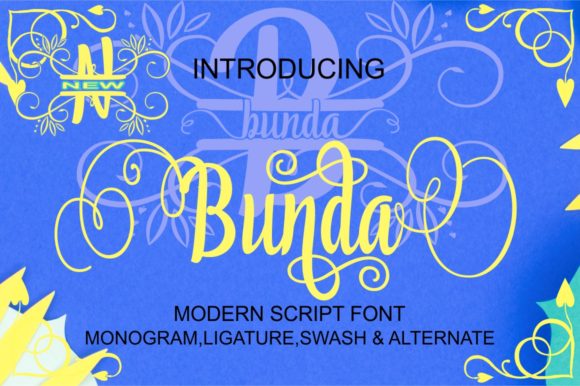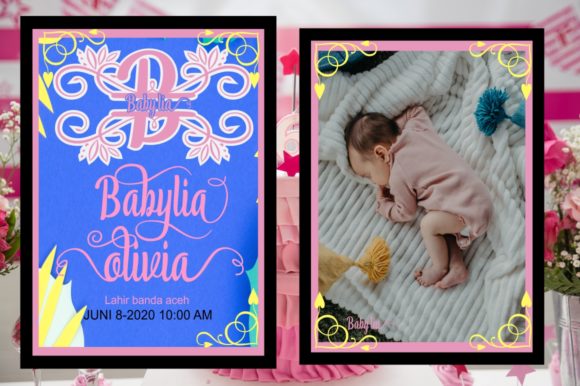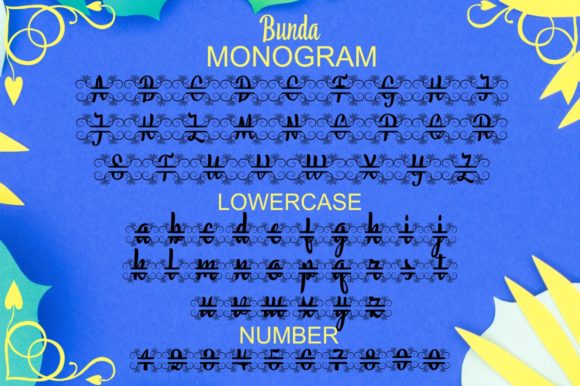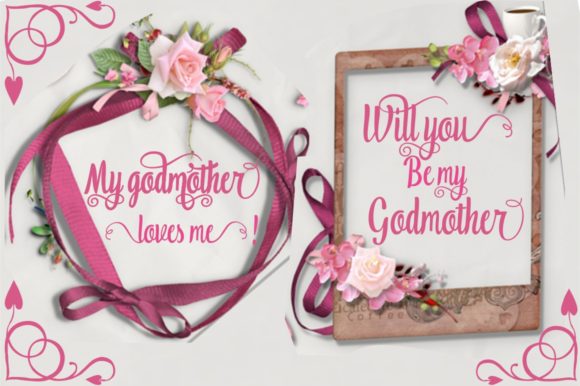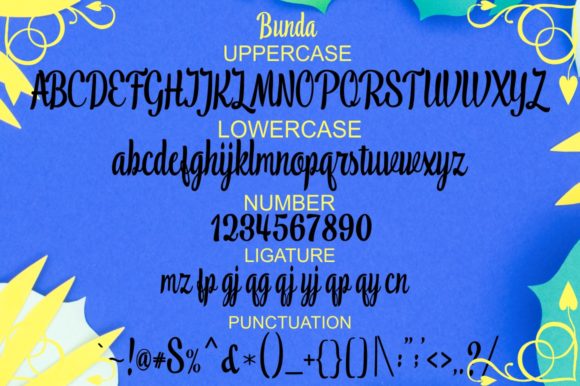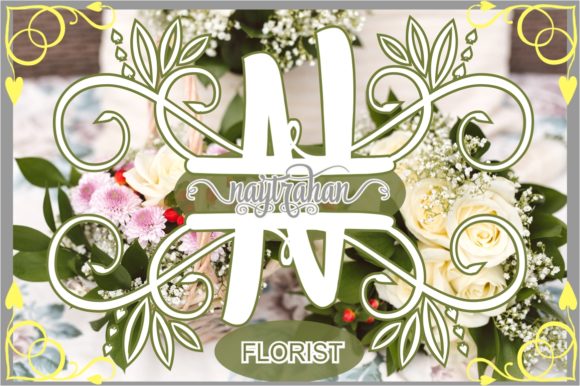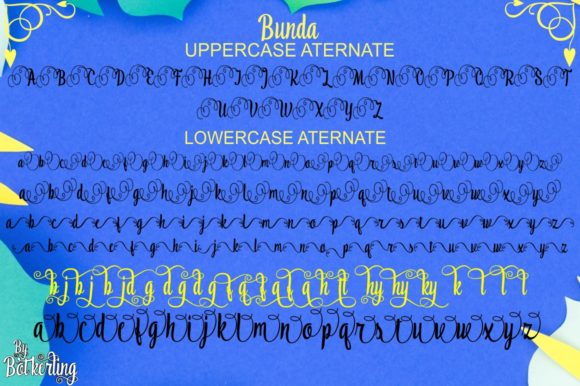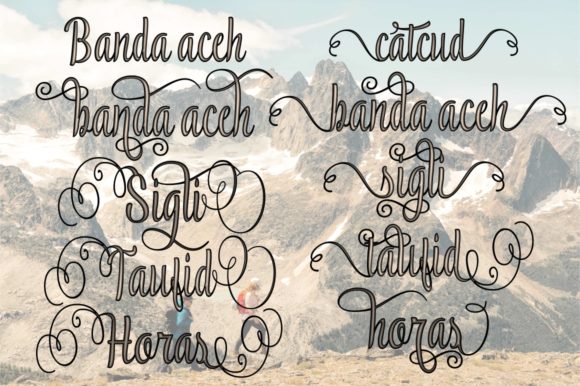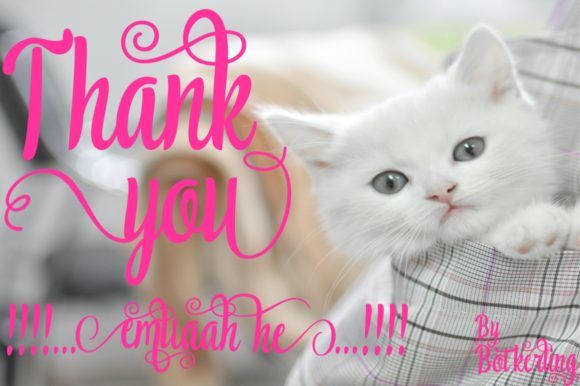
Bunda Font
About Bunda Font
Bunda simplifies elegance into one truly outstanding handwritten font. This fantastic font is best suited for headlines of all sizes, as well as for blocks of text that have both maximum and minimum variations. Whether it’s for web, print, moving images or anything else – Bunda will look spectacular.